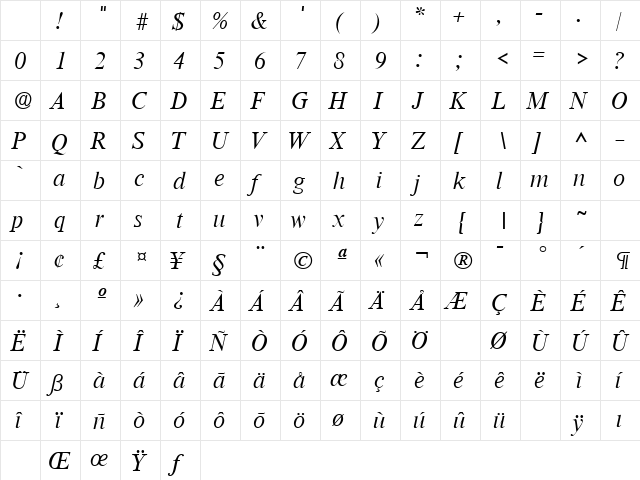
RomanLH is a composed and adaptable typeface that performs quietly and consistently across a wide range of design contexts. The slanted form adds forward momentum and visual energy.
Pro Tip: Use RomanLH for emphasis, pull quotes, and subheadings where its slanted energy can add rhythm to the layout.